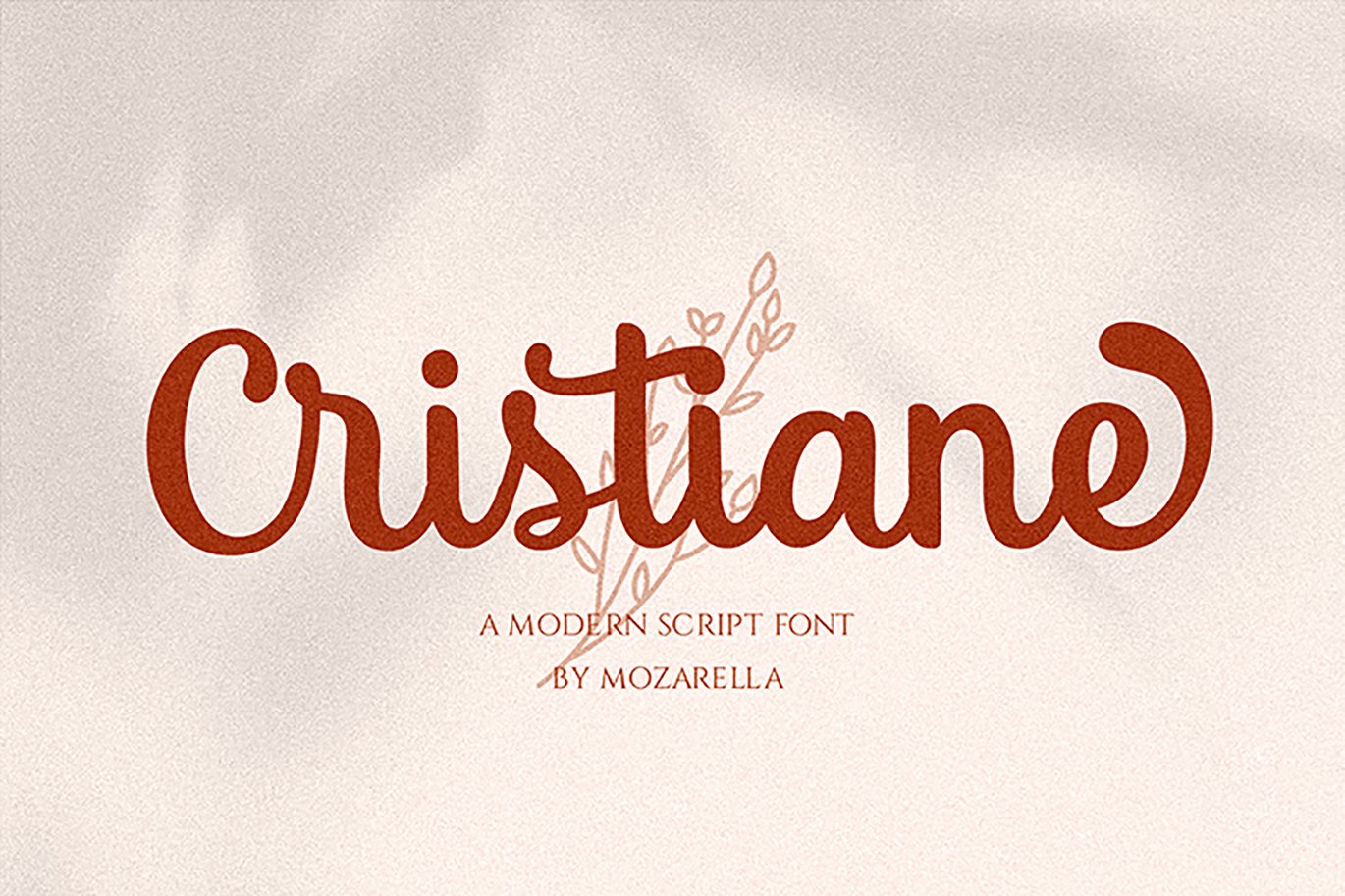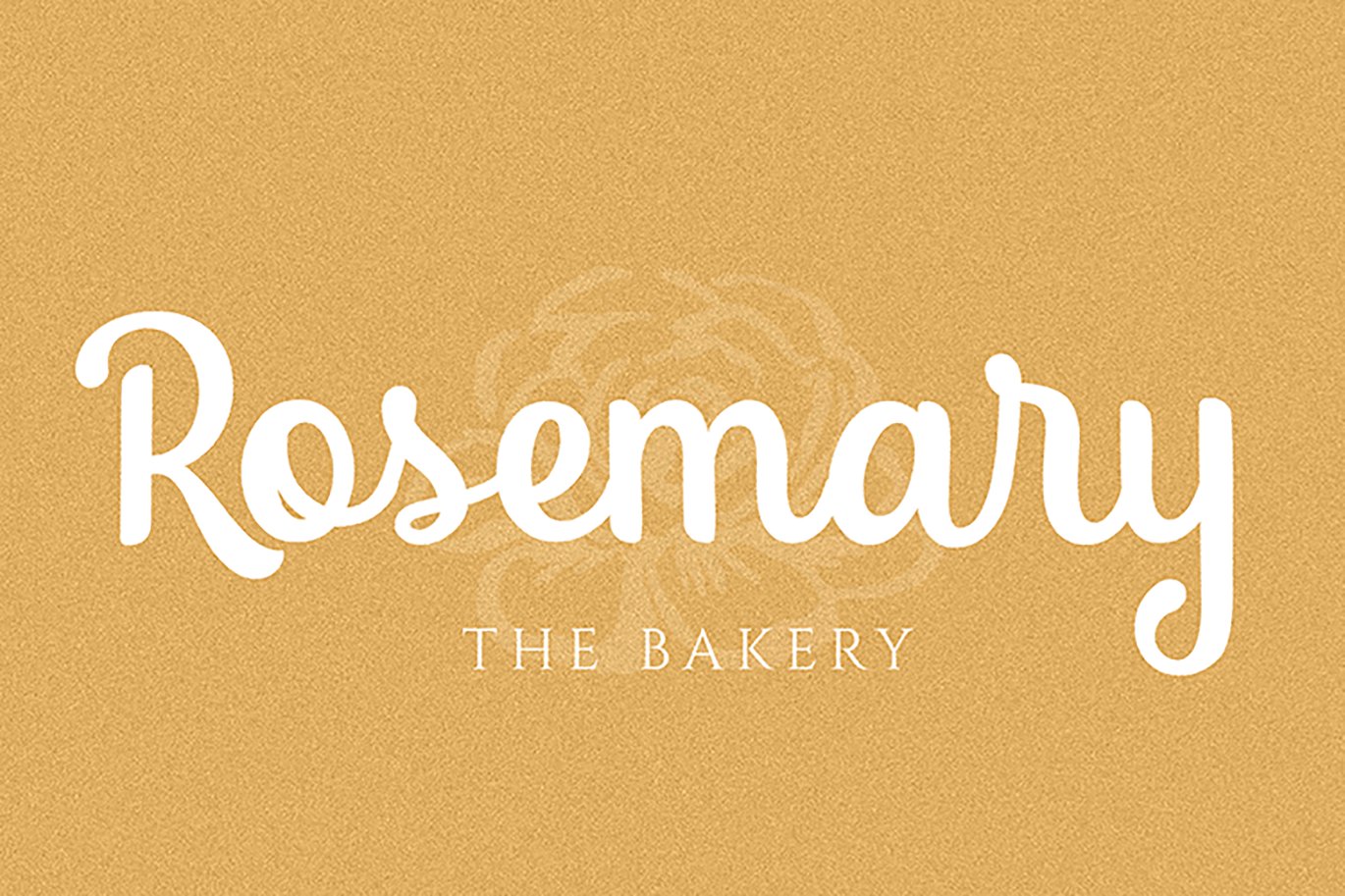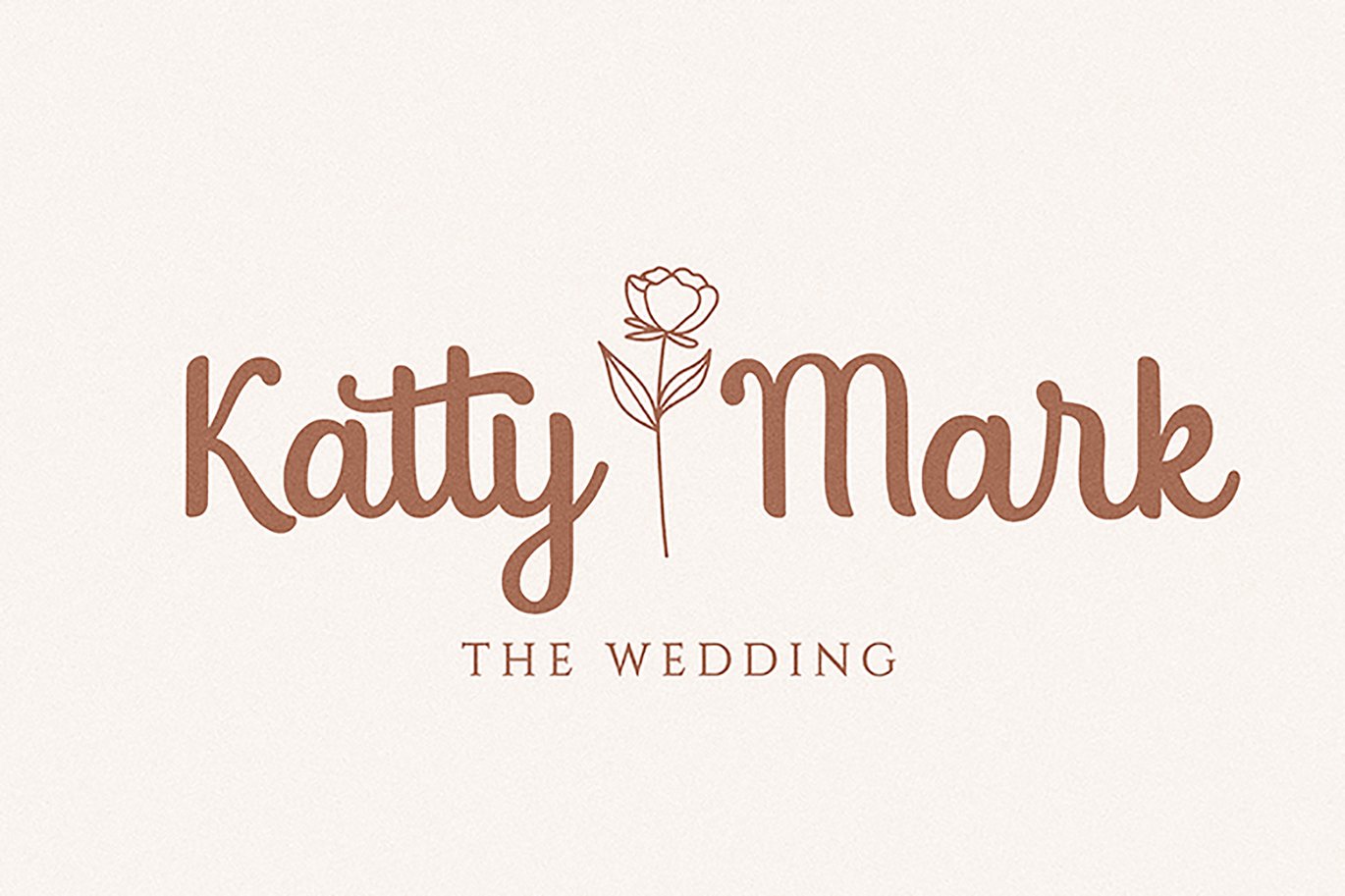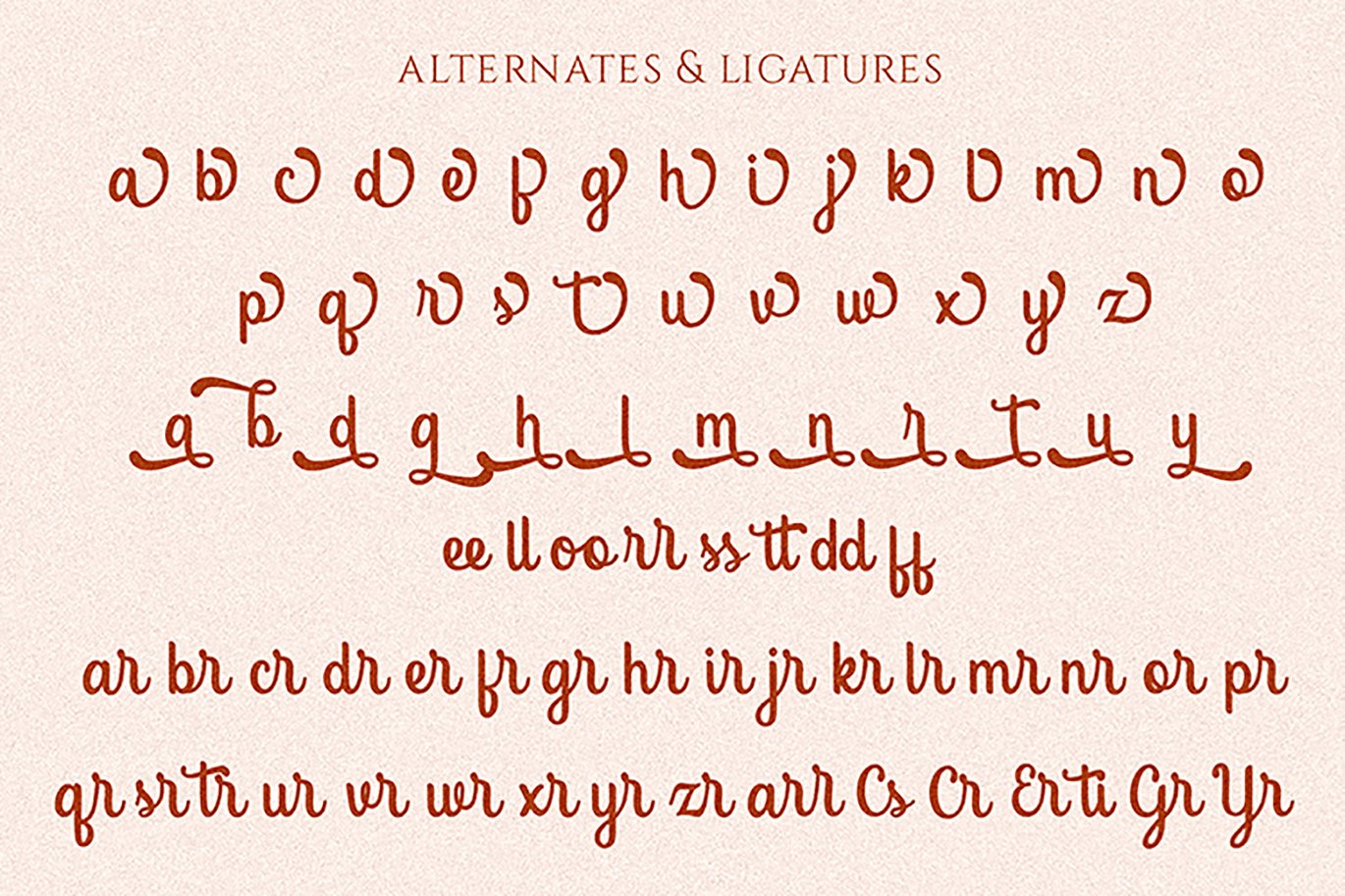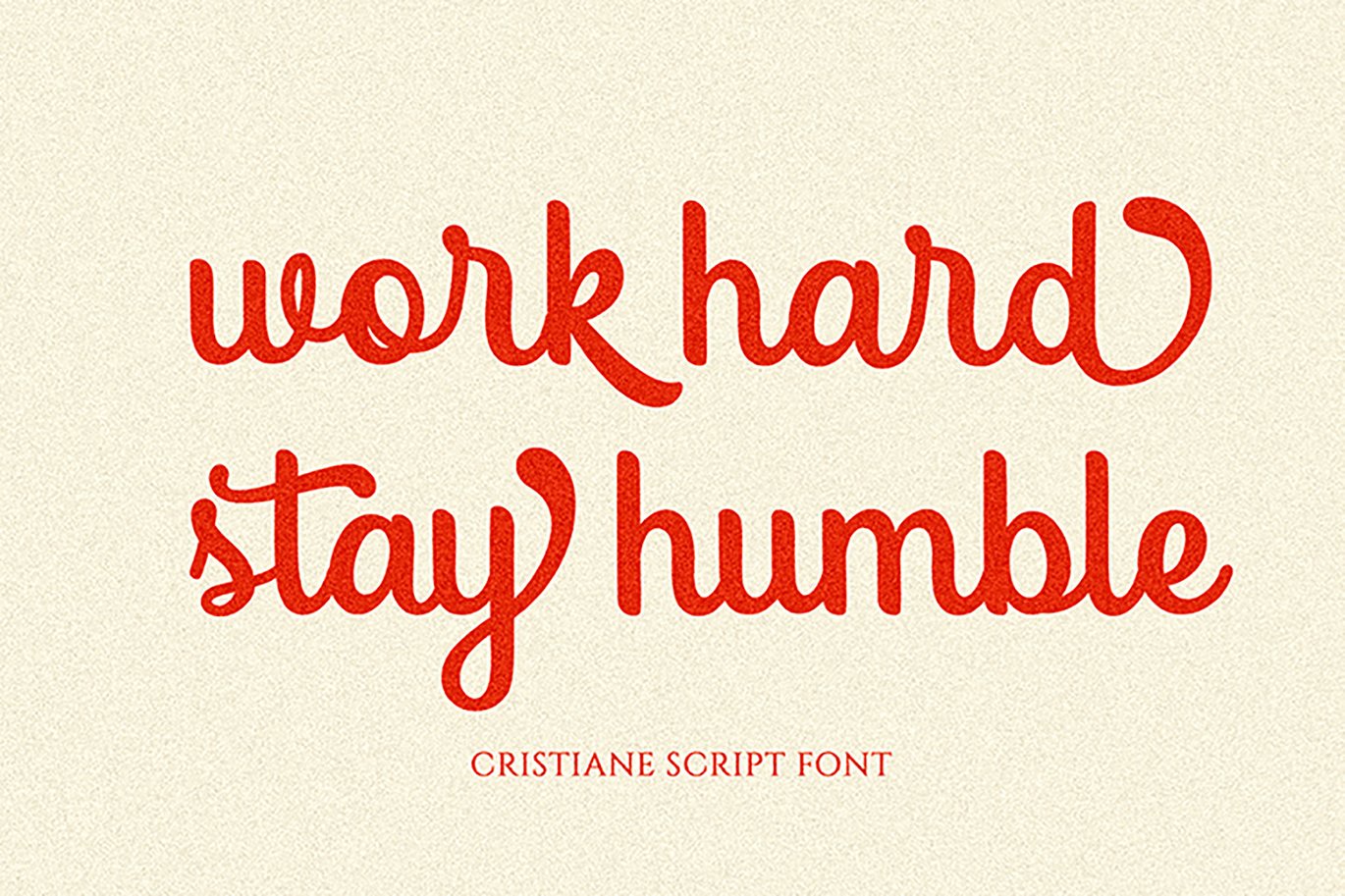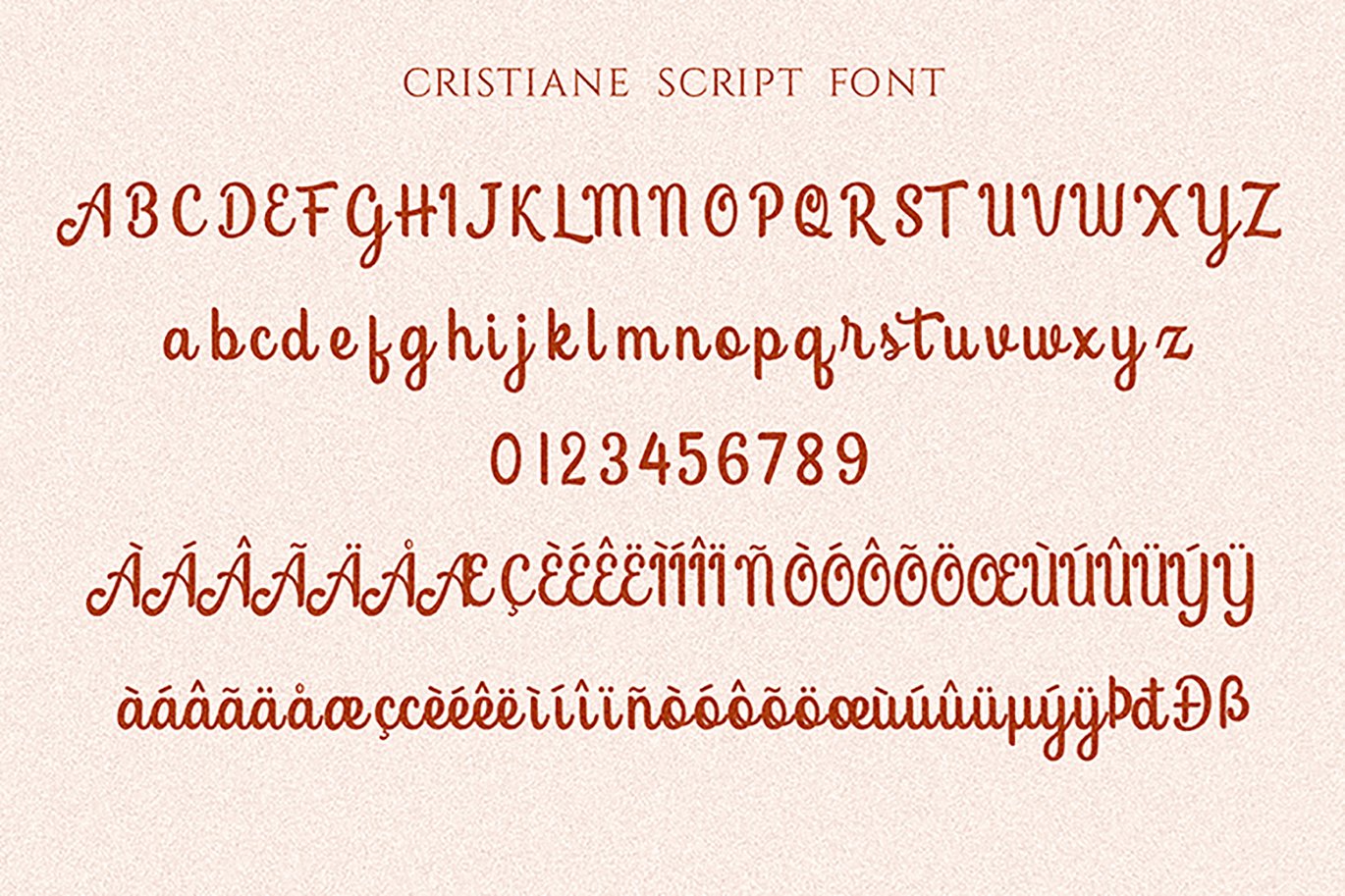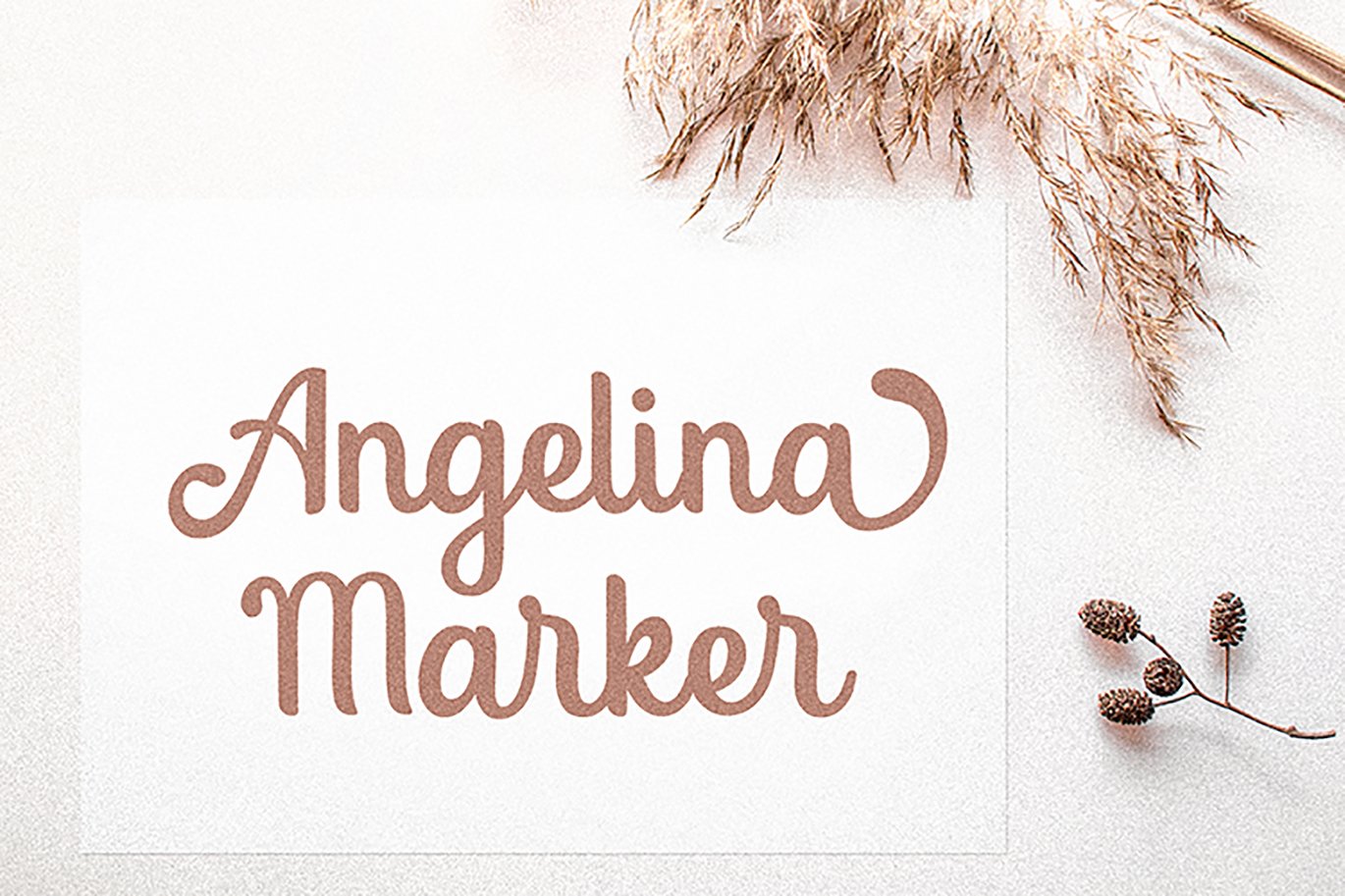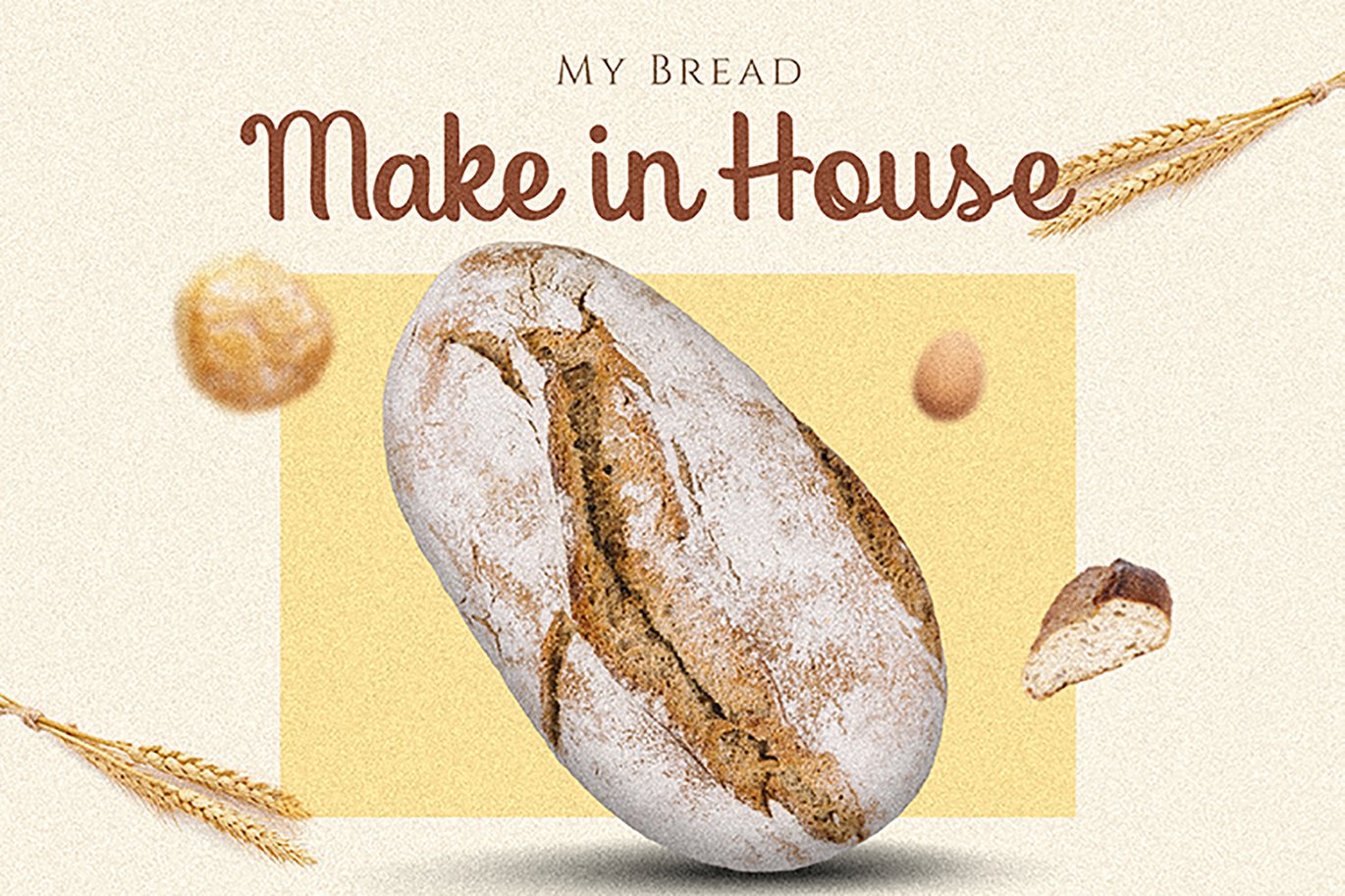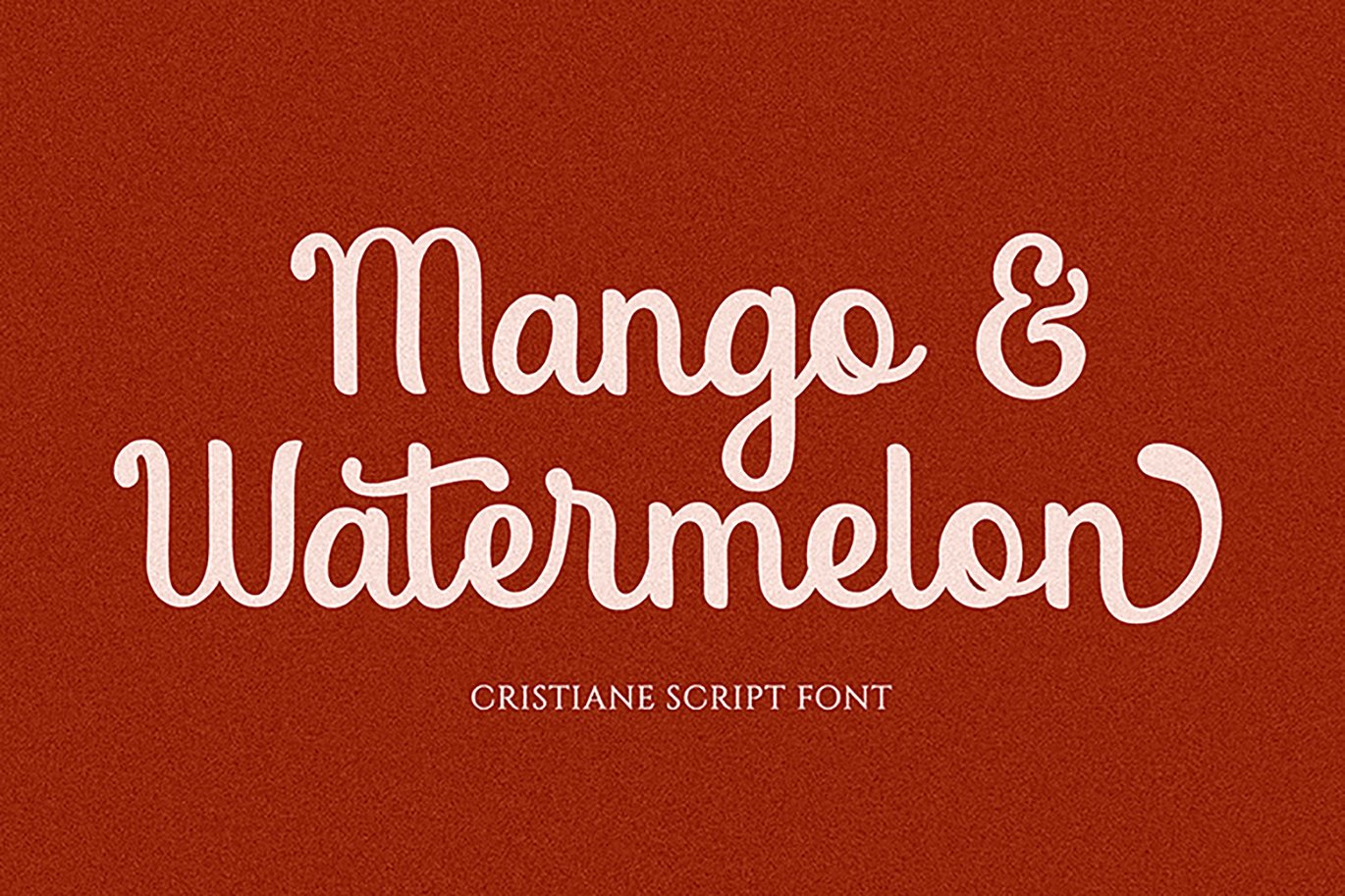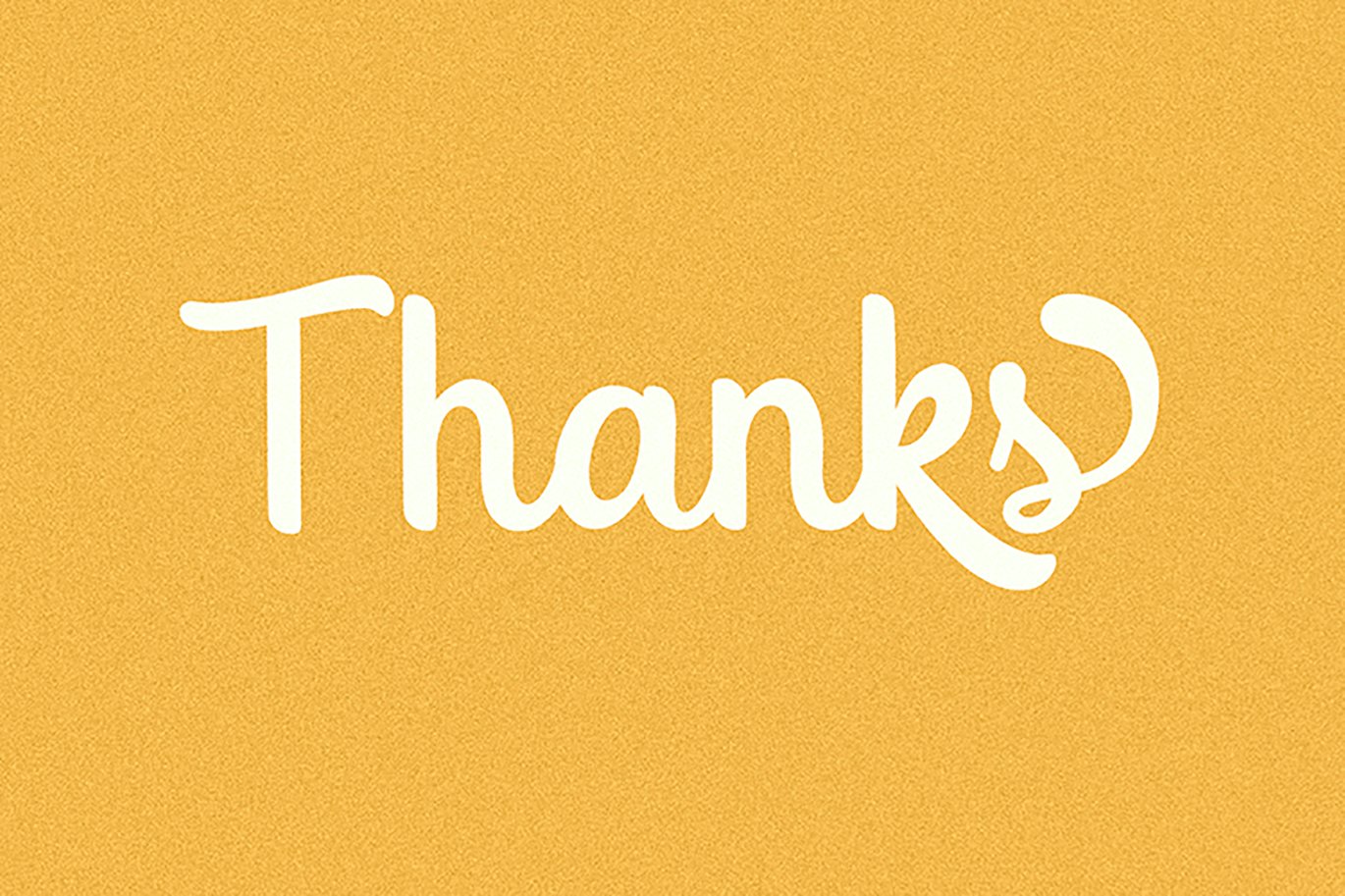
Cristiane – Script Bold Font
Introducing Cristiane, the bold and stylish script font that brings a touch of elegance to your festive designs. Perfect for themes like Christmas, Easter, Thanksgiving, and beyond, this font enhances your projects with its striking bold script. Whether you’re crafting for Cricut, embroidery, or seasonal celebrations, Cristiane adds a unique flair to your creations.
Elevate your design game with Cristiane, ideal for creating eye-catching fashion posters, engaging magazine layouts, and stunning banners. Its bold script style makes it a versatile choice for advertising and promotional materials, ensuring your message stands out with sophistication and charm.
With PUA Encoded features, Cristiane offers seamless access to a variety of alternate characters, making customization effortless. Embrace the bold elegance of Cristiane and let your creative projects shine with this dynamic and versatile script font.